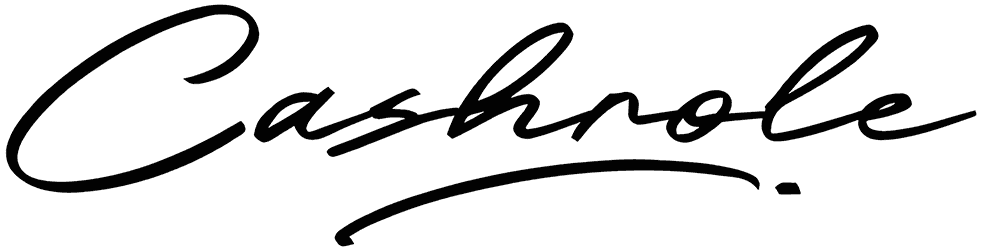
Cashrole Font
Say goodbye to your words ever sounding fake and unnatural at all. You have a handwritten font like Cashrole from now on, making it more convenient for the readers to relate to your text and see what it’s all about.
Perfectly imitating a bunch of letters written in a rush, this cursive font does an excellent job as your signature or when it’s placed on your music covers, T-shirts, or even party posters to get people into the mood, and more.